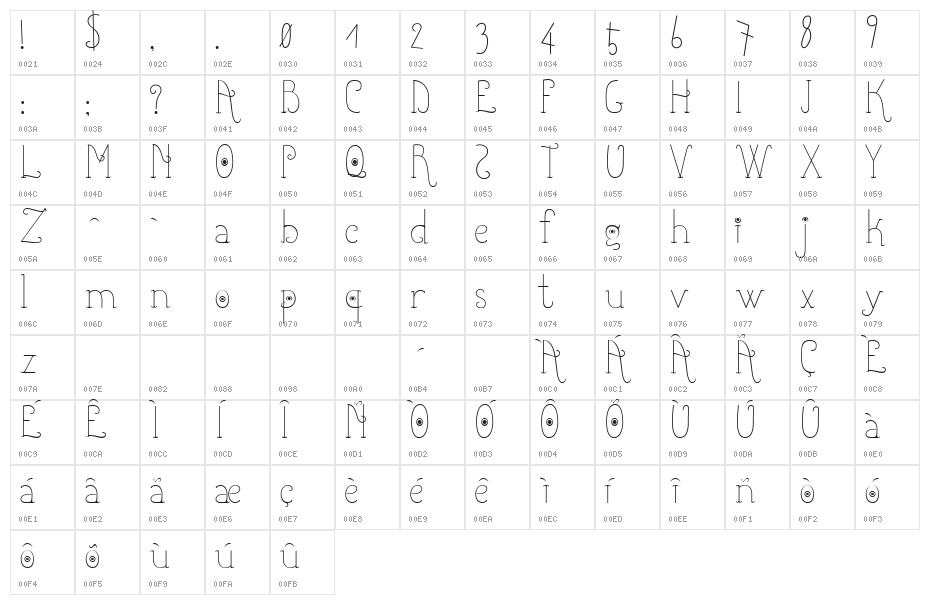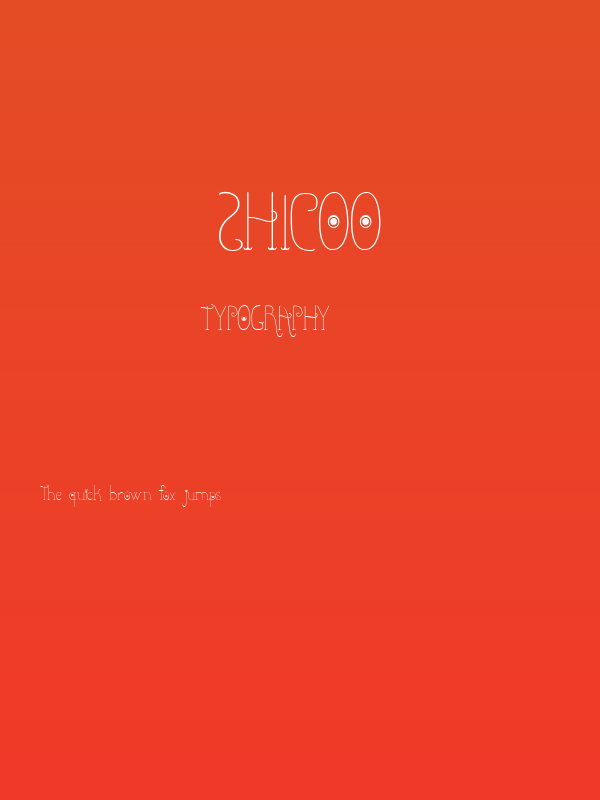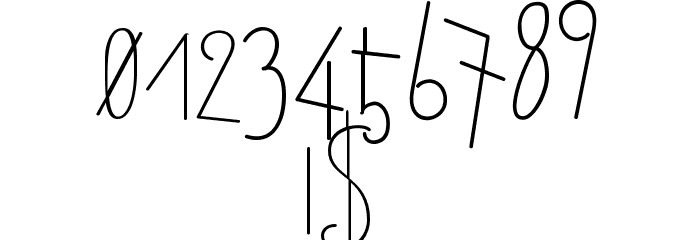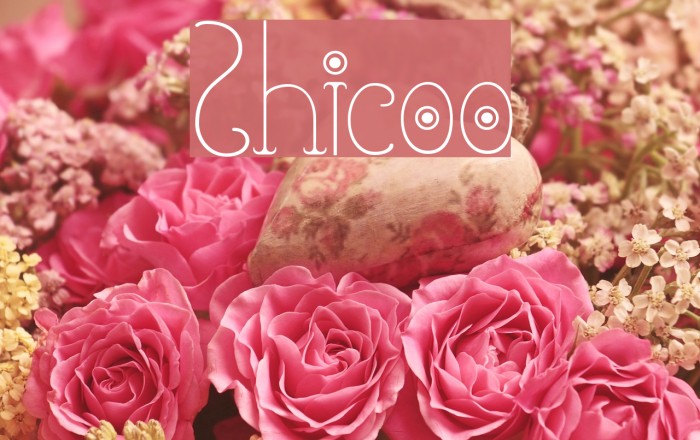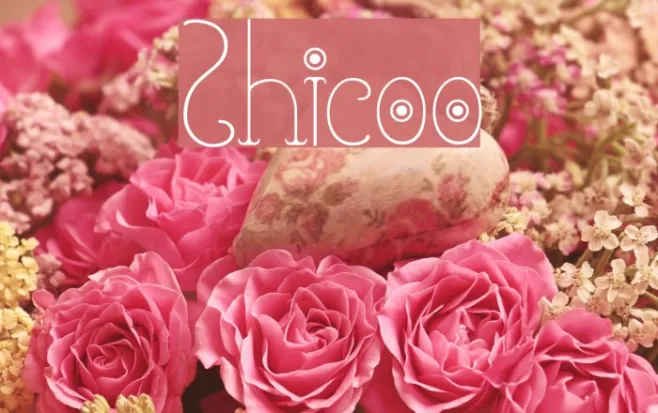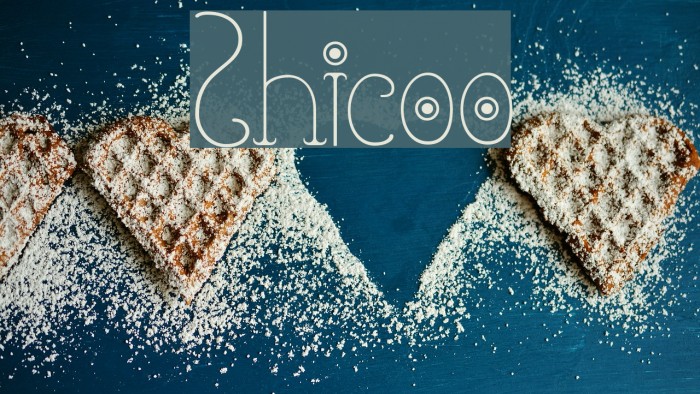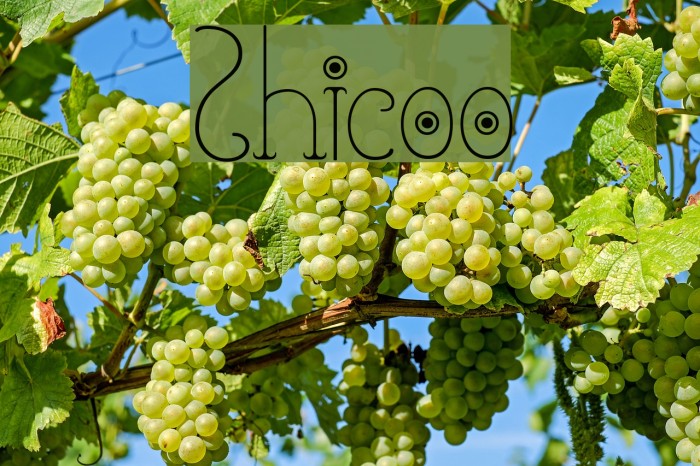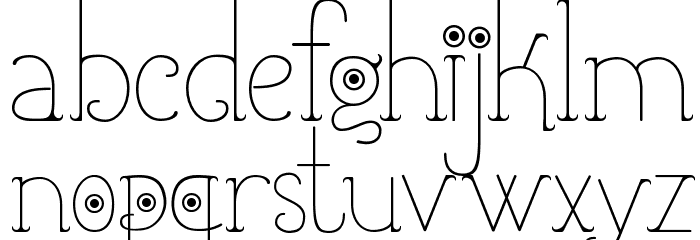
Shicoo Font
Shicoo Description
This font features a whimsical and playful design with a unique twist on traditional letterforms. The characters are thin and elongated, with an artistic flair that includes loops and swirls, giving it a lively and animated appearance. The uppercase letters are particularly distinctive, with some incorporating circular elements that resemble eyes, adding a quirky personality to the text. The lowercase letters maintain a consistent style, with smooth curves and a sense of movement. Numbers and special characters follow the same playful aesthetic, making this font ideal for creative and unconventional projects.
| Use Case | Logos, Posters, Invitations |
| Proposed Projects | Ideal for children's books, playful branding, creative posters, and whimsical invitations. |